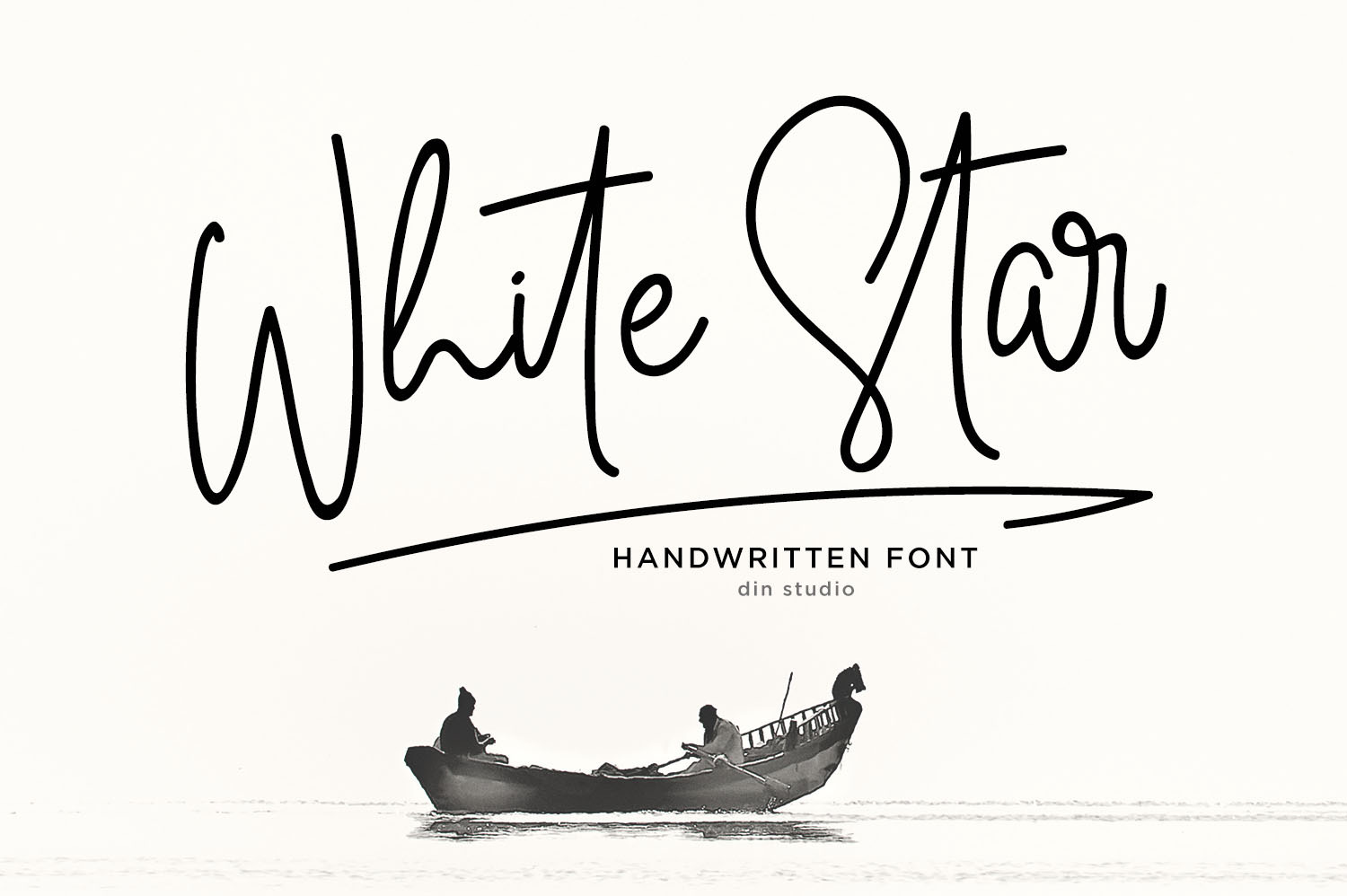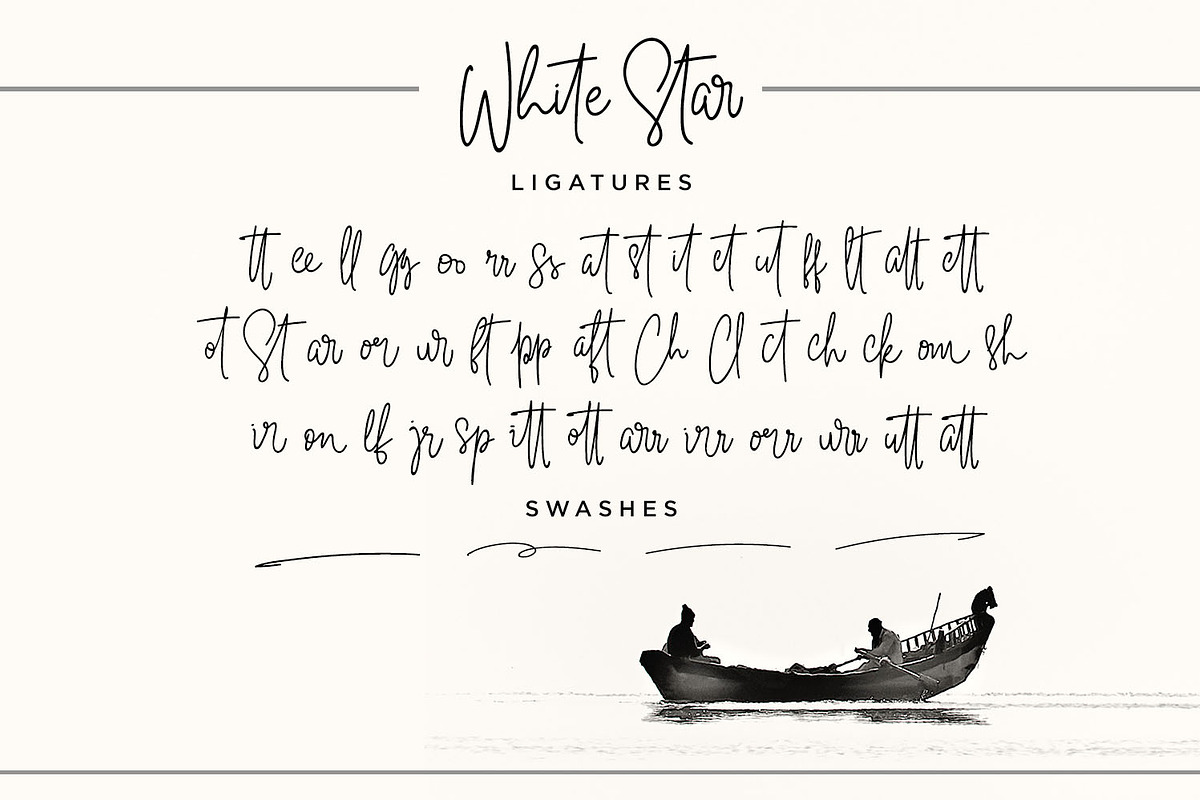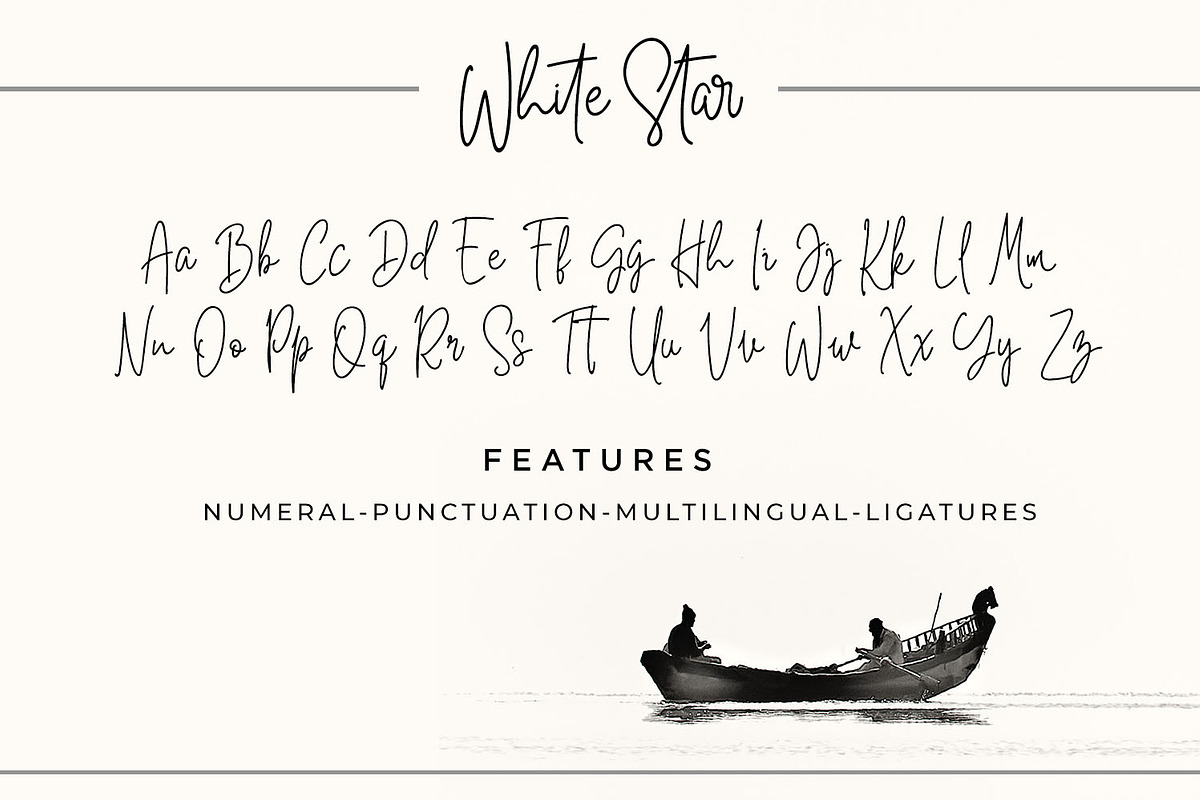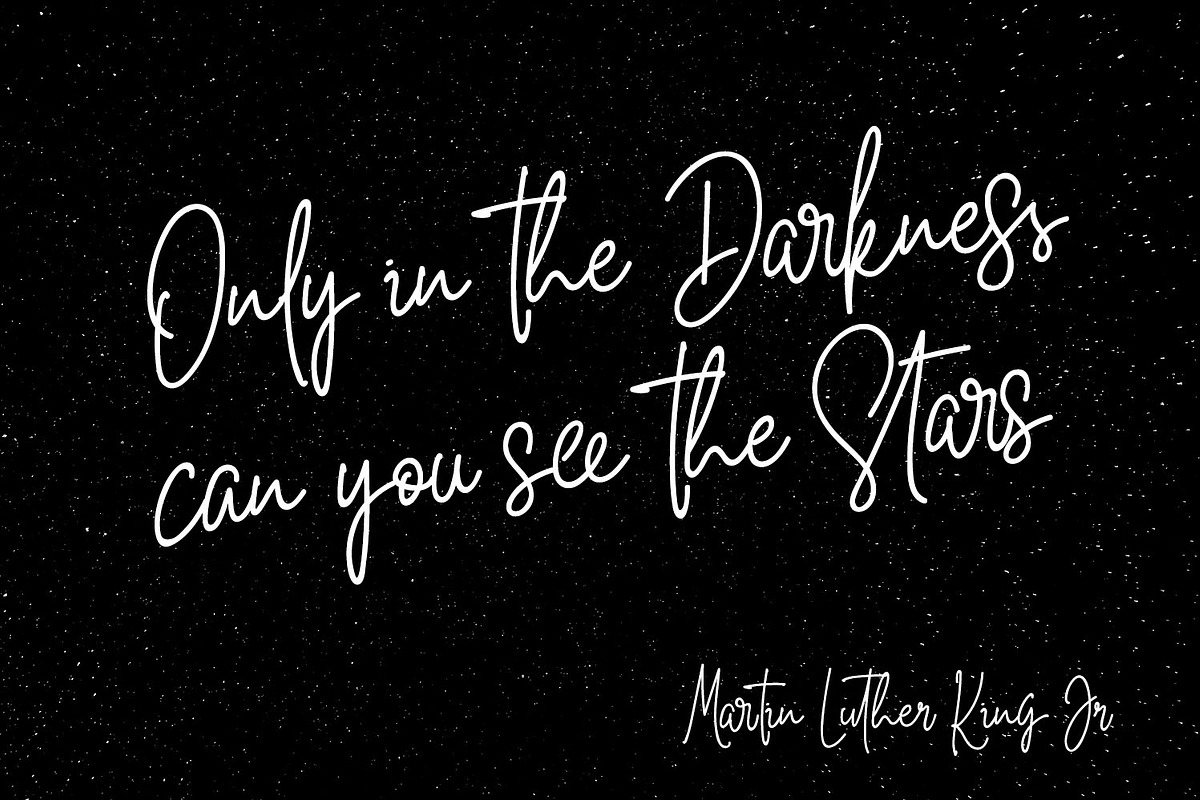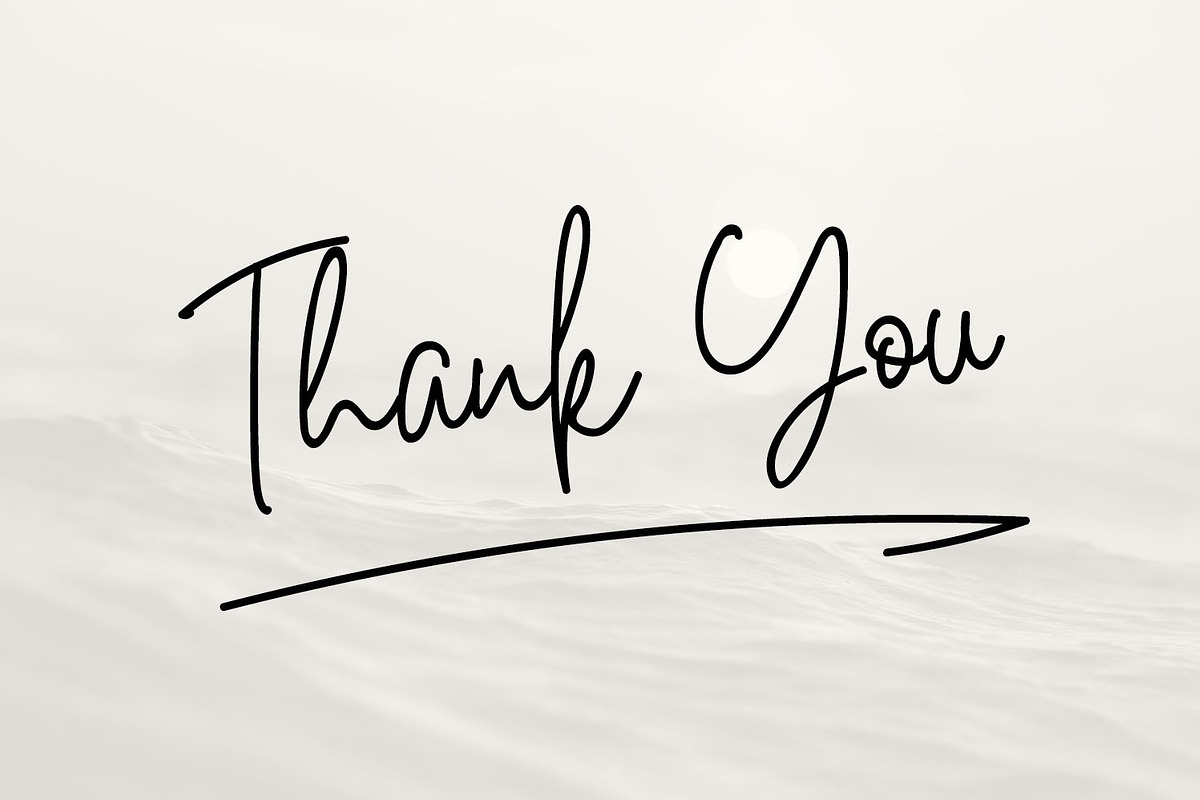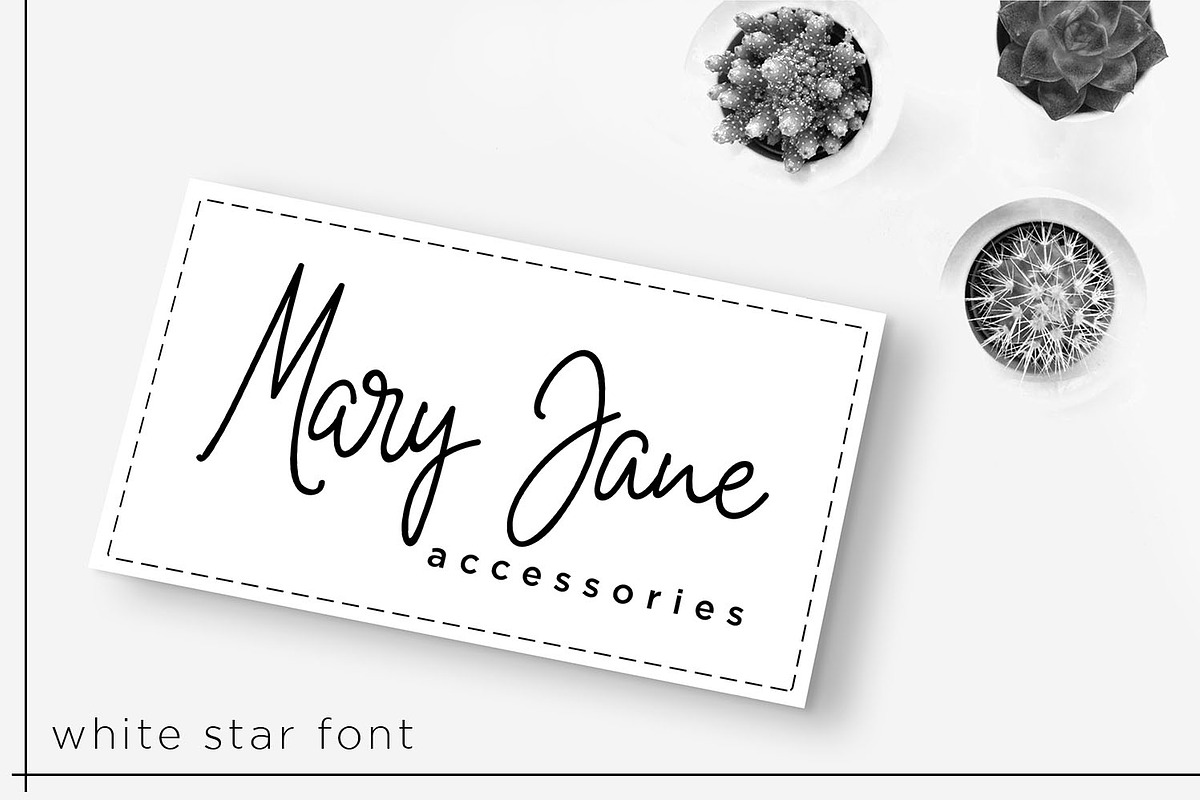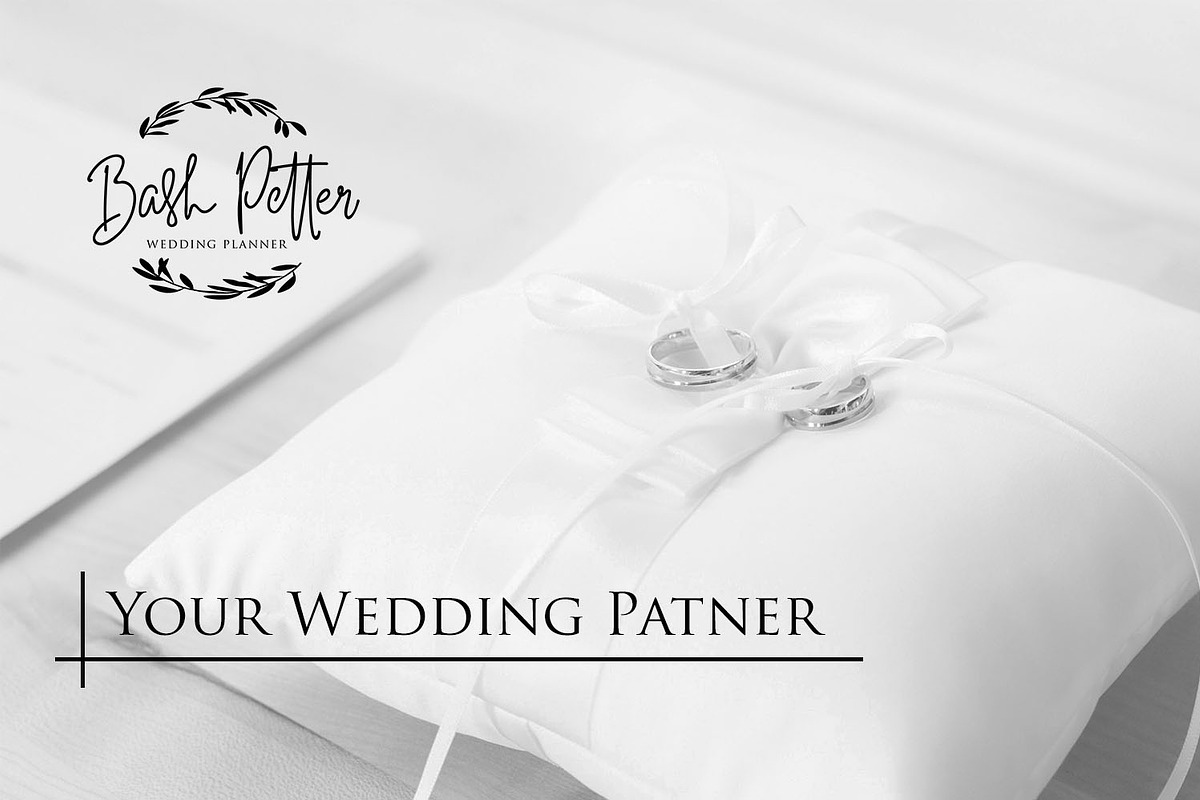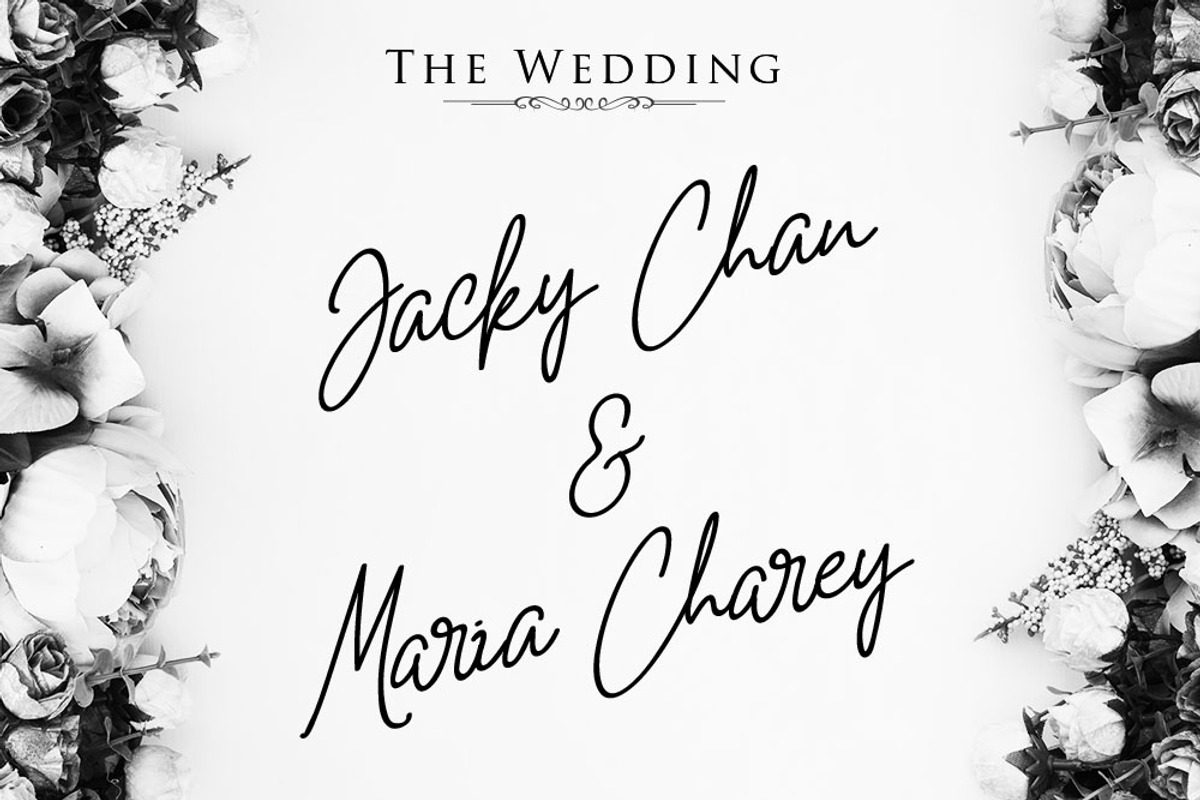
White Star - Chic Handwritten Font
Introducing White Star for your amazing project design. With a chic and natural handwritten style, it brings a beautiful and chic typeface. White Star is best used for various designs, such as posters, banners, logos, book covers, headings, printed products, merchandise, social media, and more. Find out more ways to use this font by taking a look at the font preview.
- Beautiful Ligatures